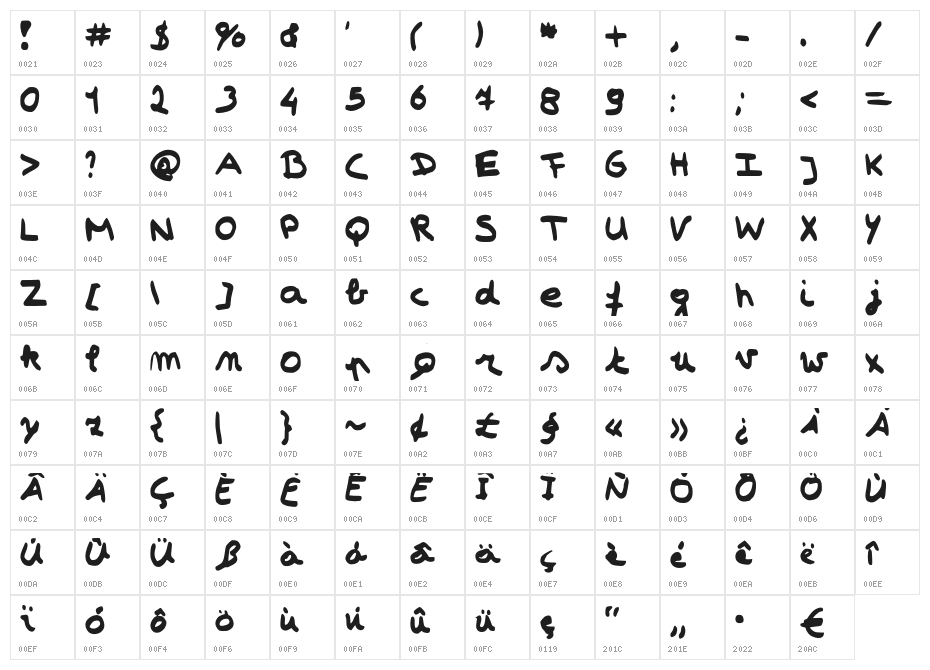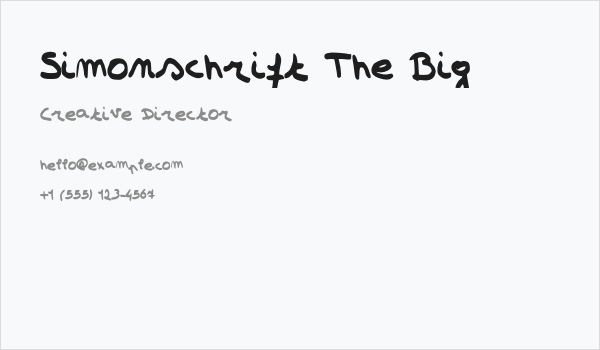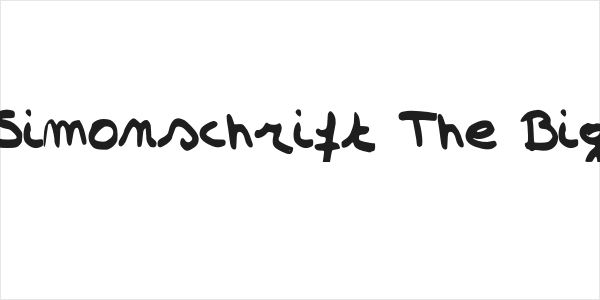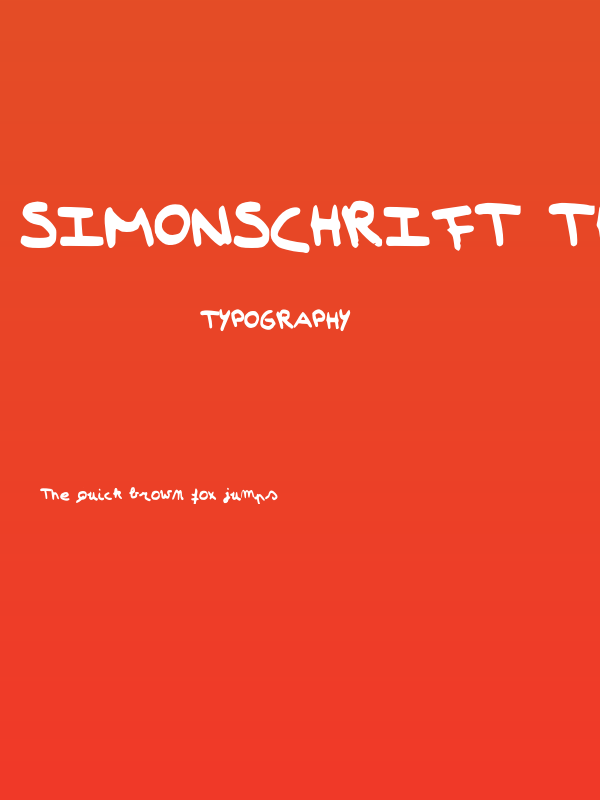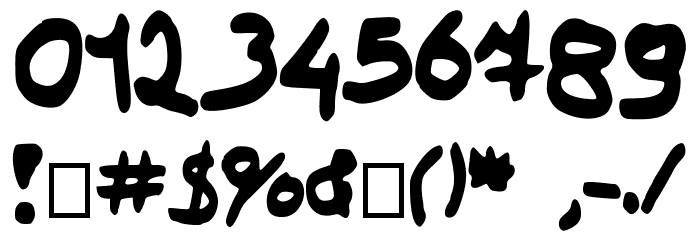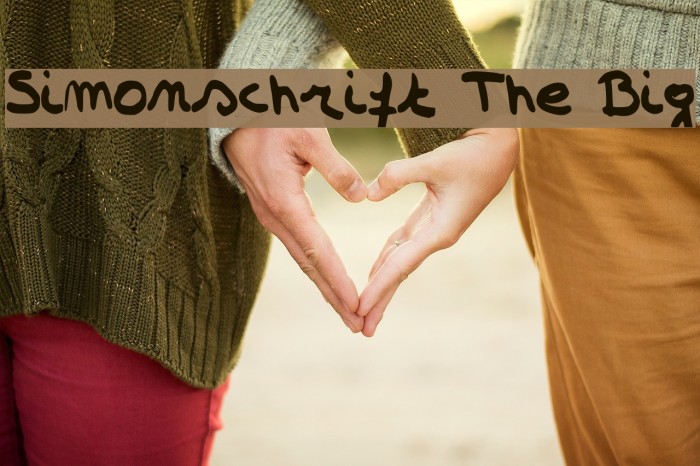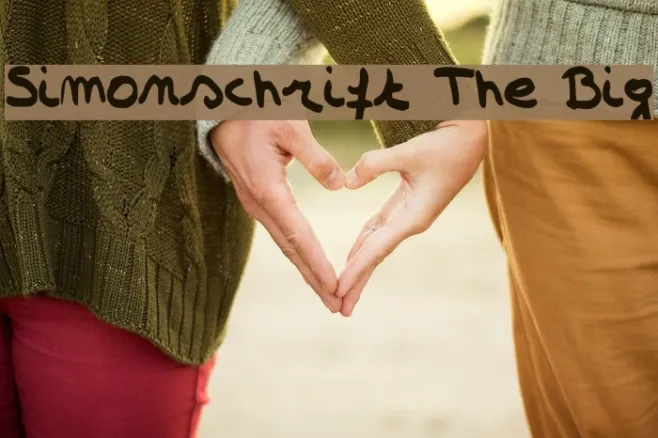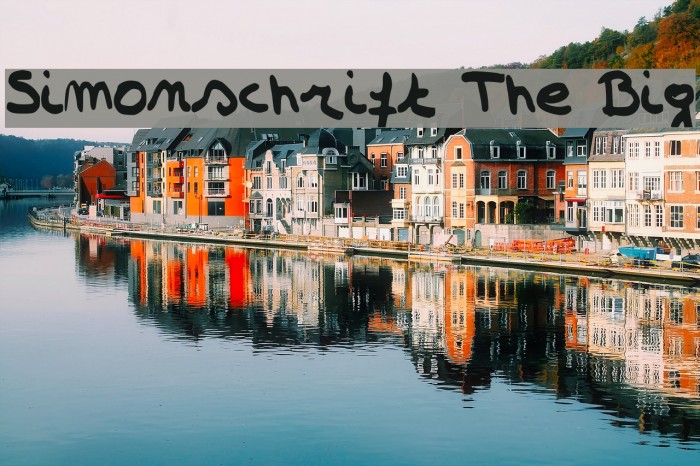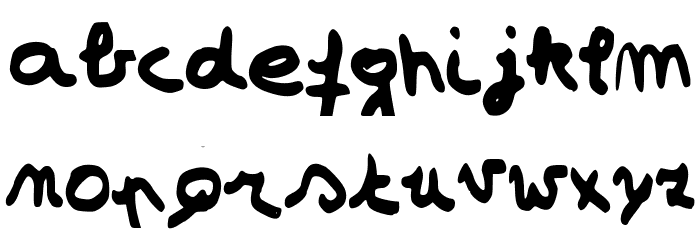
Simonschrift The Big Font
This font exhibits a playful and informal style, characterized by its bold and rounded letterforms. The strokes are uneven, giving it a hand-drawn appearance that adds a personal touch. The uppercase and lowercase letters maintain a consistent style, with some letters featuring unique quirks, such as the looped 'g' and the distinctive 'q'. The numbers are equally bold and maintain the playful aesthetic. Special characters are included, matching the overall style with a similar boldness and rounded form. This font is ideal for projects that require a casual and friendly tone.
| Proposed Projects | Ideal for children's books, casual branding, playful posters, and informal invitations. |